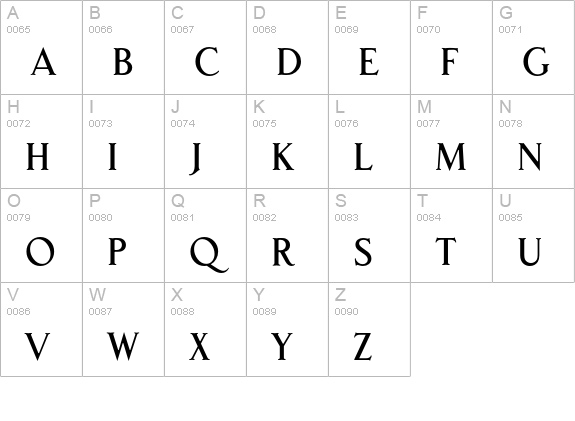
Central Station Std is a versatile and modern font that combines sleek lines with a touch of classic elegance. This font is perfect for a wide range of design projects, from branding and advertising to web design and print materials. Its clean and sophisticated appearance makes it a popular choice for designers looking to add a professional touch to their work. One of the best features of Central Station Std is that it is completely free to use. You can download this font for free at FontsMarket.com, making it accessible to designers of all levels and budgets. With its wide range of weights and styles, Central Station Std offers endless possibilities for creativity and customization. Add a touch of style and sophistication to your projects with Central Station Std, the free font that is sure to make a lasting impression.